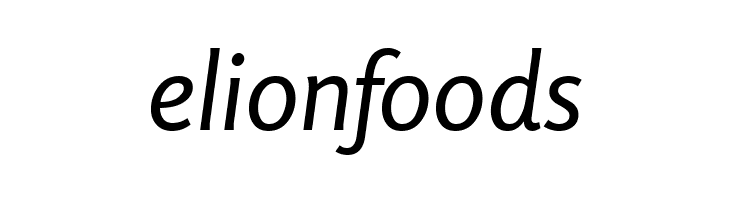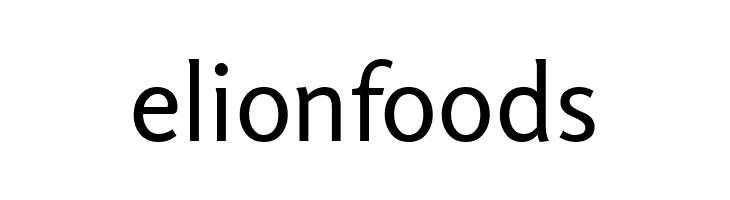
A modern, clean sans-serif font with excellent readability and uniform stroke weight.
A modern, italic sans-serif font with clean lines and a sleek design.
A modern, clean sans-serif font with a geometric structure.
A modern sans-serif font with clean lines and balanced proportions.
A modern, bold font with clean lines and a professional appearance.
A bold, italicized font with a modern and elegant style, featuring well-defined characters and excellent readability.
A modern, italic typeface with smooth curves and balanced proportions.
A modern, light-weight font with elegant curvature and excellent readability.
A sleek, light, and italic font with a modern and elegant style.
A modern, readable typeface with elegant stroke contrast.